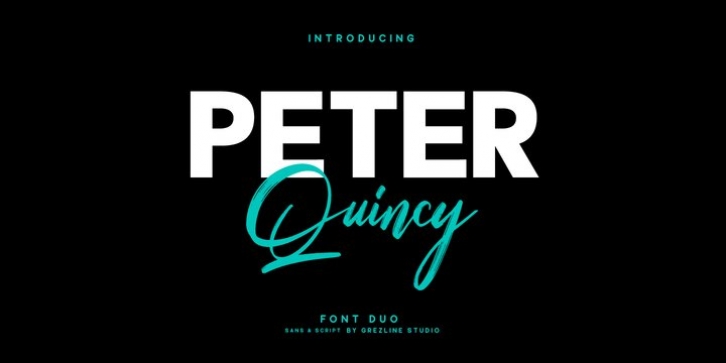
Peter Quincy was designed by Akhmad Reza Fauzi and published by Grezline Studio. Peter Quincy contains 2 styles and family package options. The font is currently #49 in Hot New Fonts.
Peter Quincy is a unique font duo, sans and handdrawn script. Peter Quincy is perfect use for a logo for branding, typography design, christmas card, product packaging, invitation, quotes, t-shirt design, label poster, special events and anything that need handwriting taste.
· Peter Quincy Regular
· Peter Quincy Sans